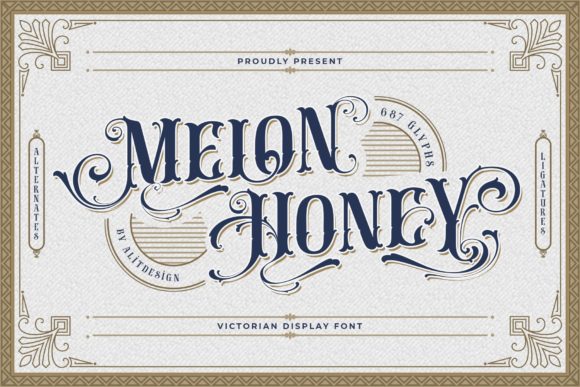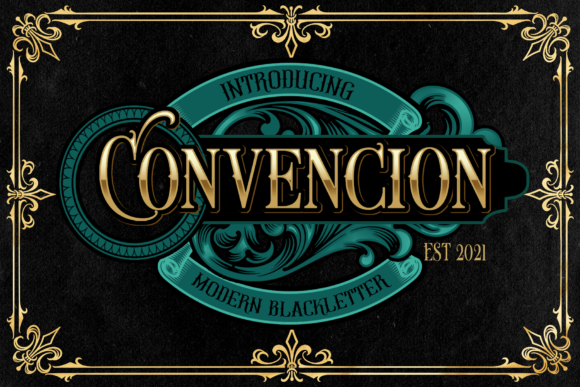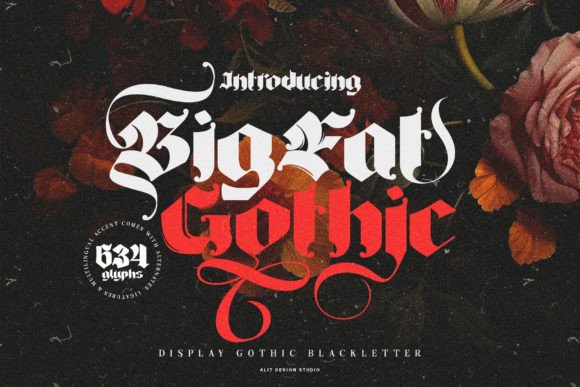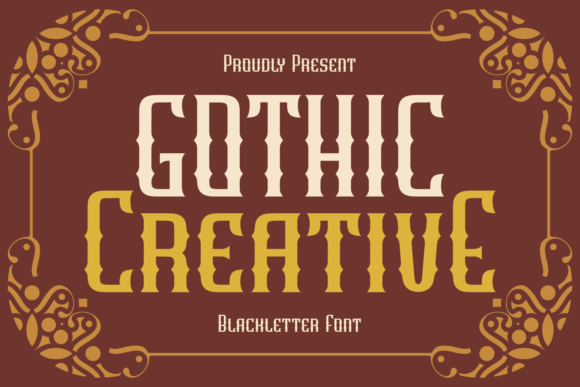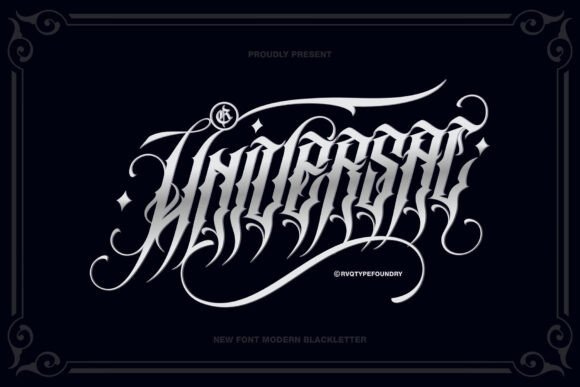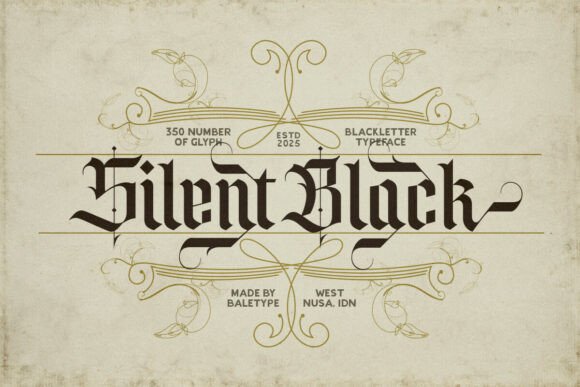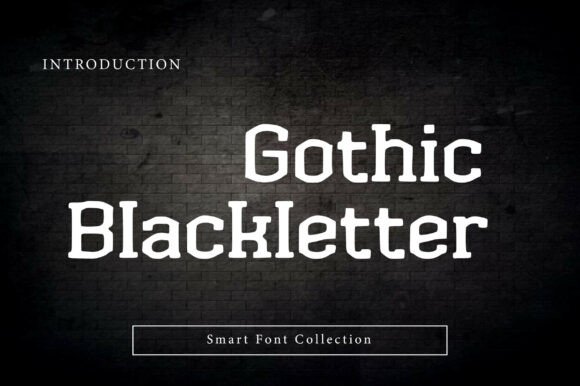
17 Best Blackletter Fonts for Metal and Tattoo Designs
Blackletter Fonts & Gothic Typography
Discover bold blackletter and gothic fonts for metal artwork, tattoo designs, band logos, album covers, merchandise, posters, streetwear graphics, and dark alternative branding.
Why blackletter fonts work so well for metal and tattoo designs: Blackletter typography has a distinctive historical character built around dramatic letterforms, sharp details, dense shapes, and strong visual presence. These qualities make gothic and blackletter styles especially useful when a design needs an intense, rebellious, mysterious, or traditional atmosphere.
How to Choose a Blackletter Font
The right blackletter font depends on the mood and purpose of your design. Some styles feel traditional and medieval, while others are heavier, darker, or more contemporary. For metal artwork, look for fonts with strong silhouettes and dramatic letterforms. For tattoo work, consider how clearly the letters will remain recognizable when used at the intended size.
Blackletter fonts can also work beautifully for band identities, album artwork, apparel, posters, stickers, logos, and alternative lifestyle branding. When choosing a font, consider readability, spacing, composition, and how the lettering interacts with illustrations or other graphic elements.
17 Best Blackletter Fonts for Metal and Tattoo Designs
This collection brings together 17 blackletter and gothic fonts with strong visual personalities. Use them for dark typography, metal-inspired graphics, tattoo concepts, band merchandise, posters, album covers, and other projects that need a bold gothic aesthetic.
01 · Classic Blackletter
Cambridge
Cambridge brings a classic blackletter character to display typography. Its traditional gothic appearance makes it a strong option for designs inspired by historic lettering, dark culture, and old-school tattoo aesthetics.
02 · Dark Gothic
Nightmare Gothic
Nightmare Gothic is designed for projects that need a darker and more intense gothic presence. The name and visual direction make it particularly suitable for horror-inspired compositions, heavy music graphics, and dramatic lettering.
03 · Bold Gothic
Beardsons
Beardsons offers a strong display style with the visual weight needed for bold lettering. It can bring a rugged, traditional feel to logos, apparel graphics, tattoo concepts, and other statement-driven designs.
04 · Gothic Display
Rostage
Rostage has the commanding presence that works well when typography needs to become a major graphic element. Its gothic-inspired character can add depth and attitude to branding and dark display designs.
05 · Decorative Gothic
Melon Honey
Melon Honey adds a decorative personality to bold display lettering. It can be used when a project needs something more expressive than a strictly traditional blackletter style.
06 · Tattoo Gothic
Convencion
Convencion fits naturally into tattoo-oriented and gothic display work. Its distinctive letterforms can help create lettering with a strong traditional character while remaining visually prominent.
07 · Strong Blackletter
Brother Gothic
Brother Gothic delivers a bold gothic look suited to high-impact typography. Its strong presence makes it useful for projects where the lettering needs to stand out clearly against a graphic background.
08 · Traditional Gothic
Taylor Gothic
Taylor Gothic brings a recognizable gothic atmosphere to display typography. It works especially well when you want lettering to feel traditional, dramatic, and visually substantial.
09 · Dark Display
Silent Black
Silent Black has a dark, powerful name and a display-oriented personality. It can add a mysterious and intense quality to lettering-heavy designs, especially when used as a focal typographic element.
10 · Gothic Display
Gothic Friday
Gothic Friday is suited to expressive display typography with a gothic edge. It can give posters, logos, merchandise, and themed graphics a distinctive dark-lettering treatment.
11 · Heavy Gothic
Big Fat Gothic
Big Fat Gothic is built for visual impact. Its name suggests a heavier approach to gothic typography, making it a natural choice when you need large, attention- grabbing lettering in a composition.
12 · Classic Blackletter
Midnight Blackletter
Midnight Blackletter combines a traditional blackletter direction with a dark, atmospheric feel. It is well suited to designs that need a strong gothic identity without relying on modern sans-serif typography.
13 · Versatile Blackletter
Universal Blackletter
Universal Blackletter is a flexible choice for projects built around traditional gothic lettering. Its strong display character can anchor logos, headlines, and decorative compositions.
14 · Gothic Style
Gothic Fiction
Gothic Fiction is a natural fit for storytelling-driven and atmospheric designs. Its gothic direction can help create a mysterious visual identity for artwork, posters, logos, and dark-themed typography.
What is the difference between blackletter and gothic fonts?
The terms are often used closely together in contemporary design. Blackletter describes a group of historical type styles, while “gothic” is frequently used more broadly for typography with a dark, medieval, or dramatic visual character.
Can I use blackletter fonts for apparel and merchandise?
Absolutely. Blackletter styles can work well for T-shirts, hoodies, patches, stickers, posters, album merchandise, and other products where bold typography needs to remain visually prominent.